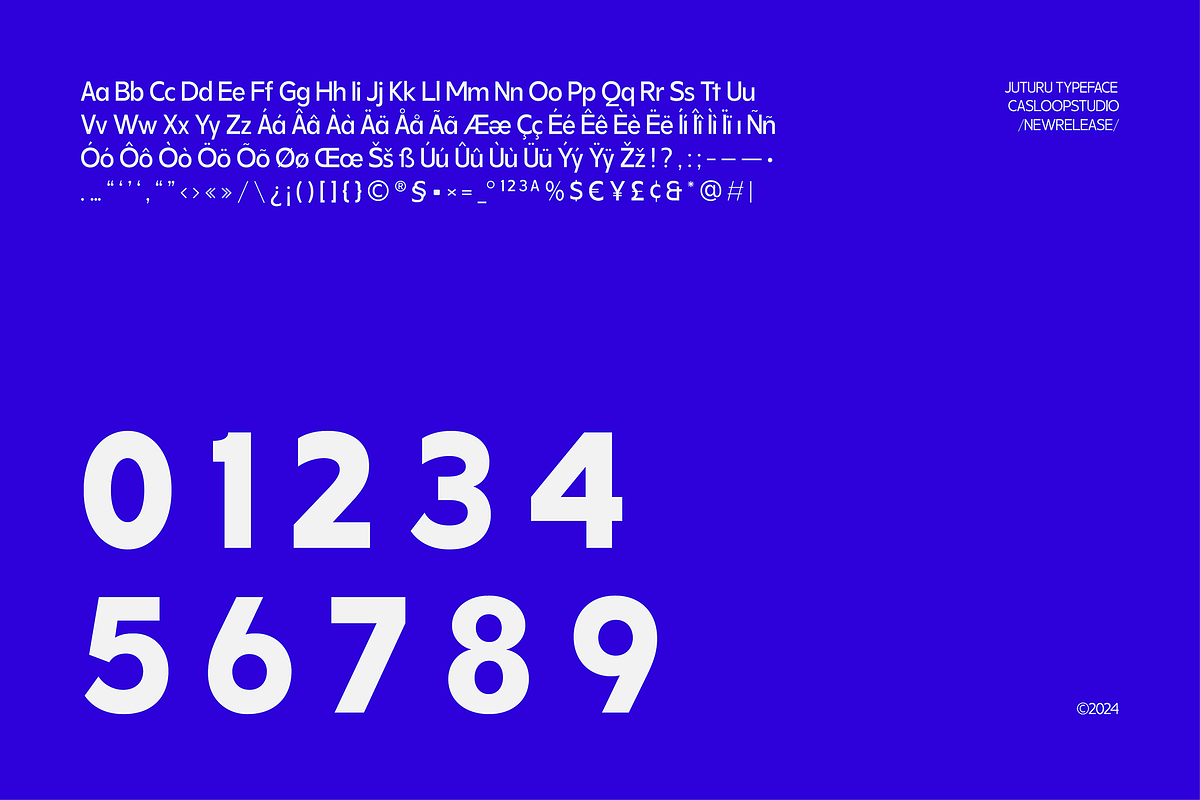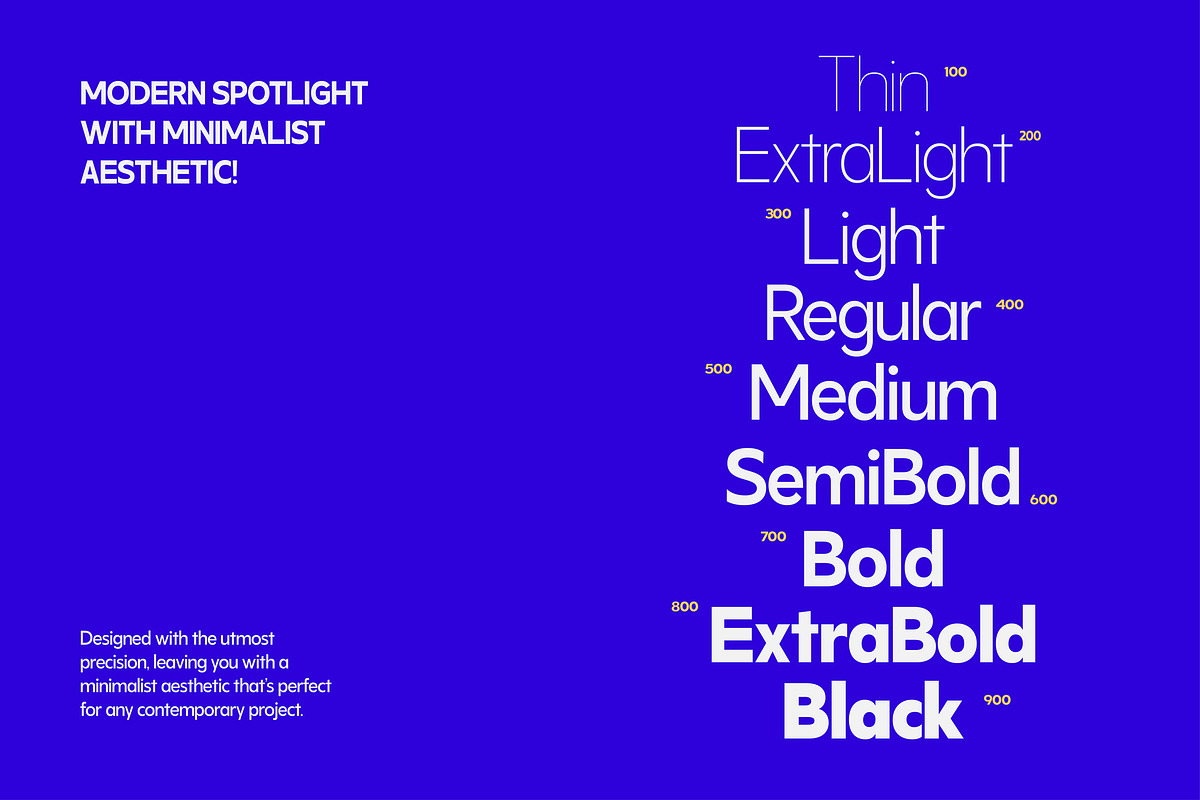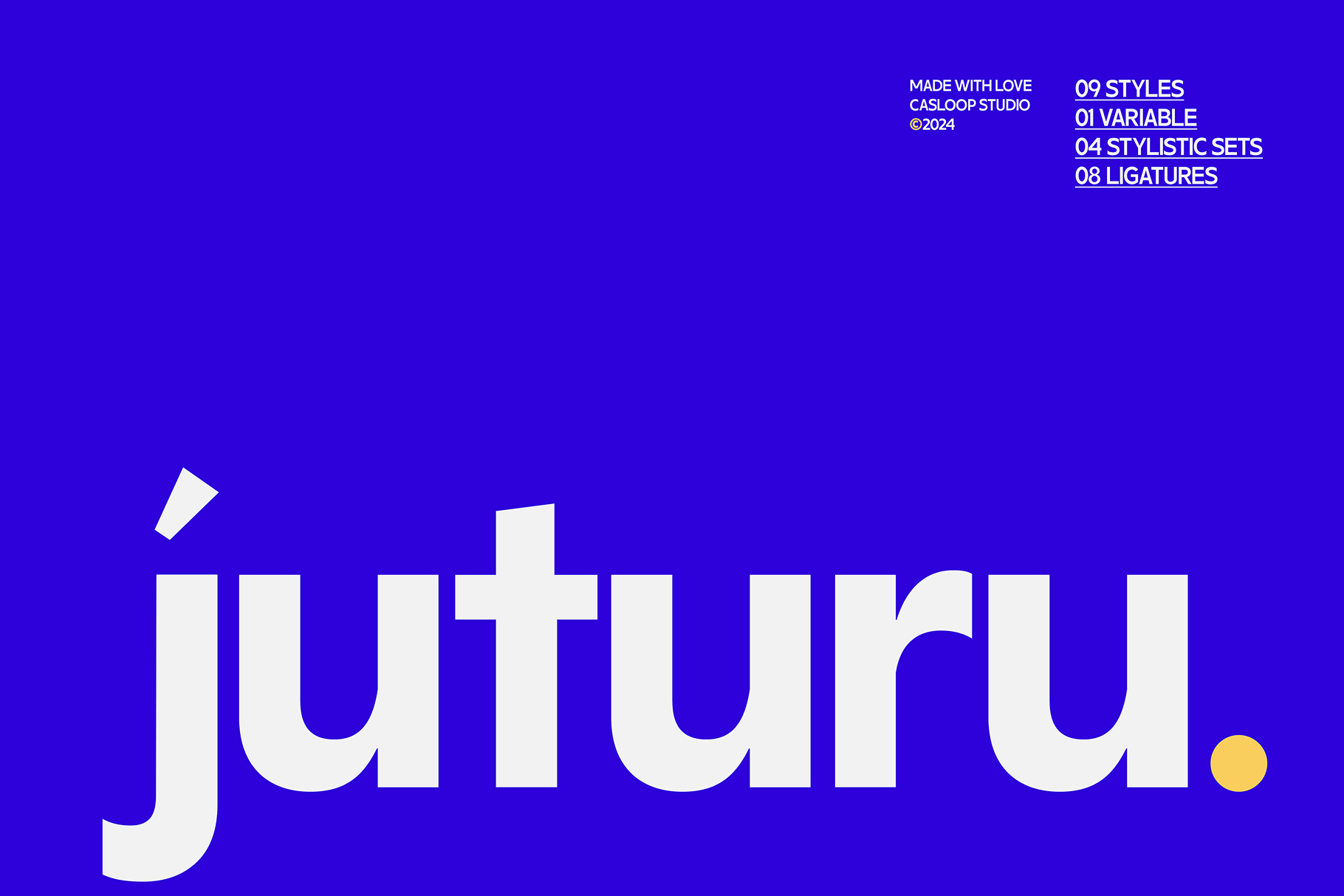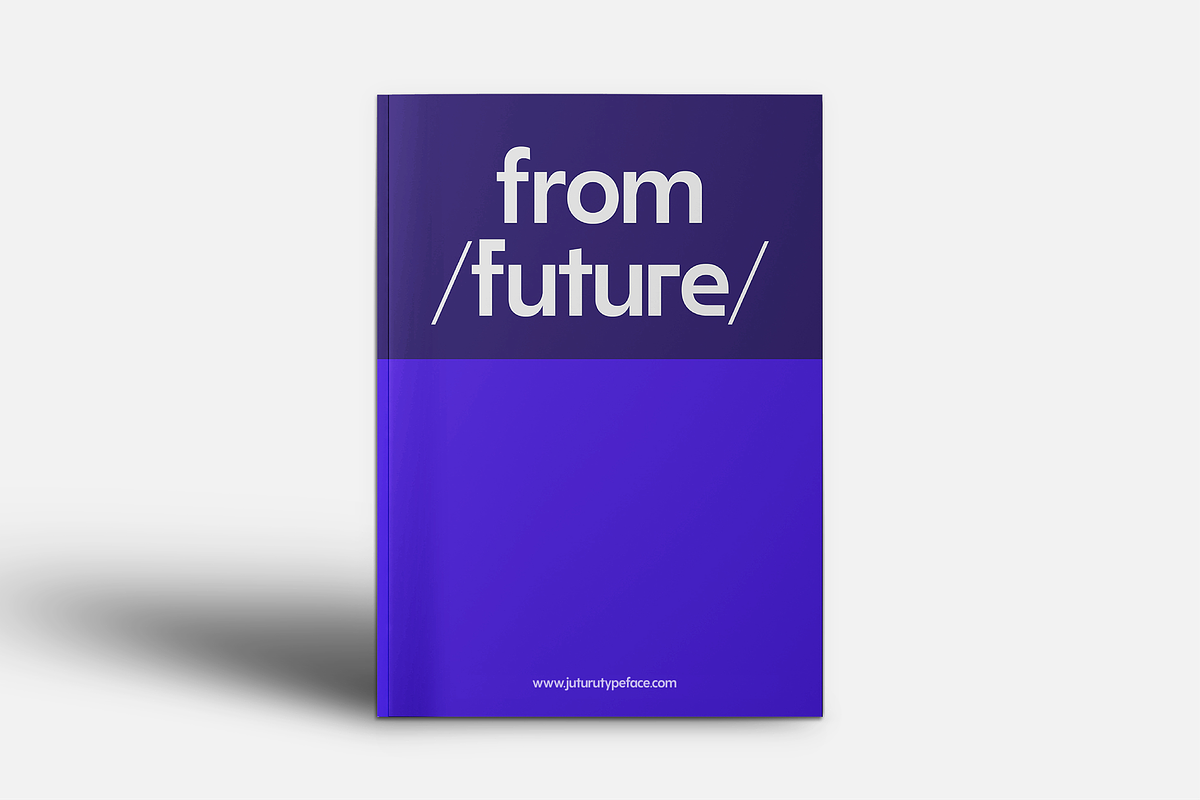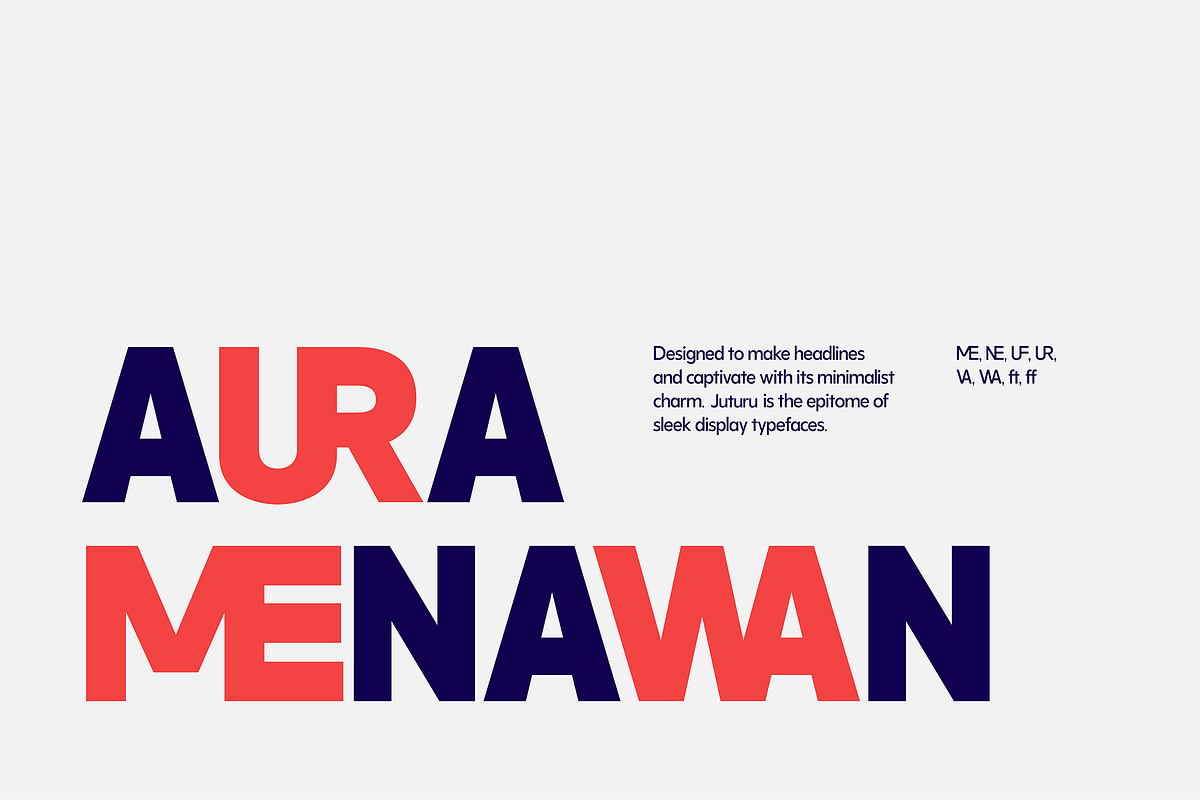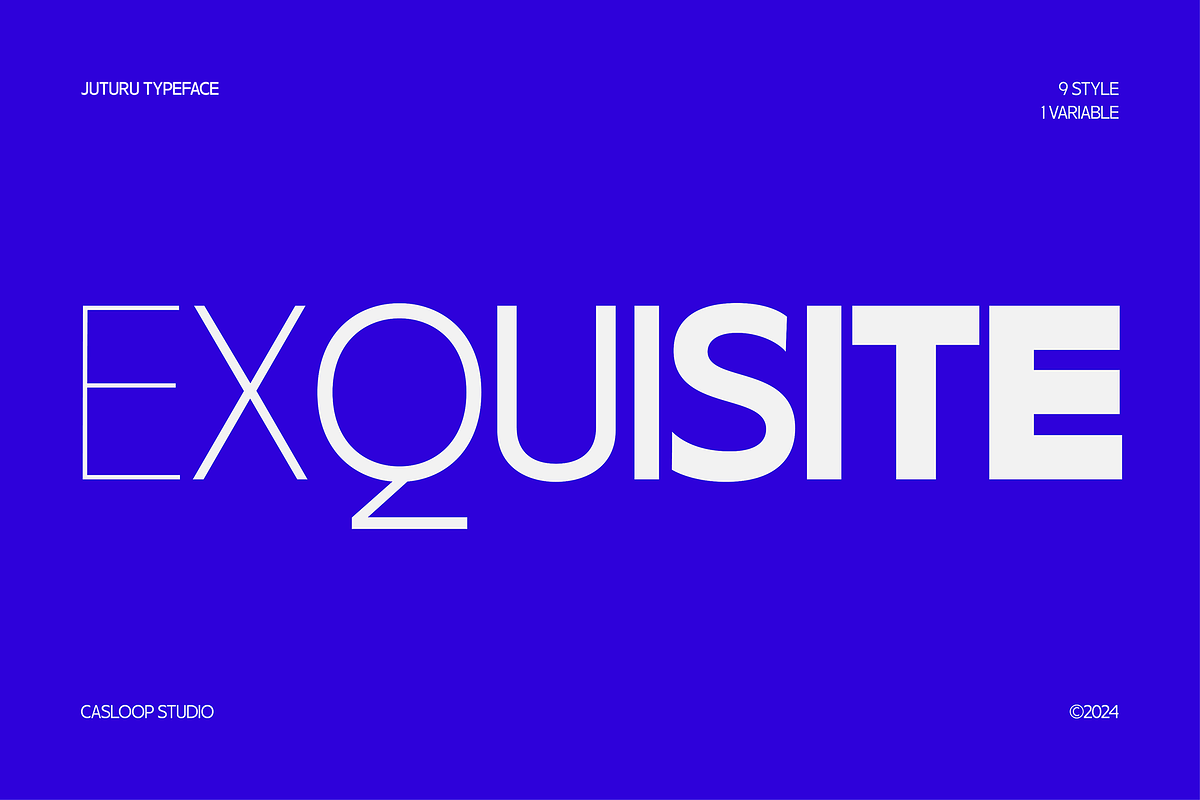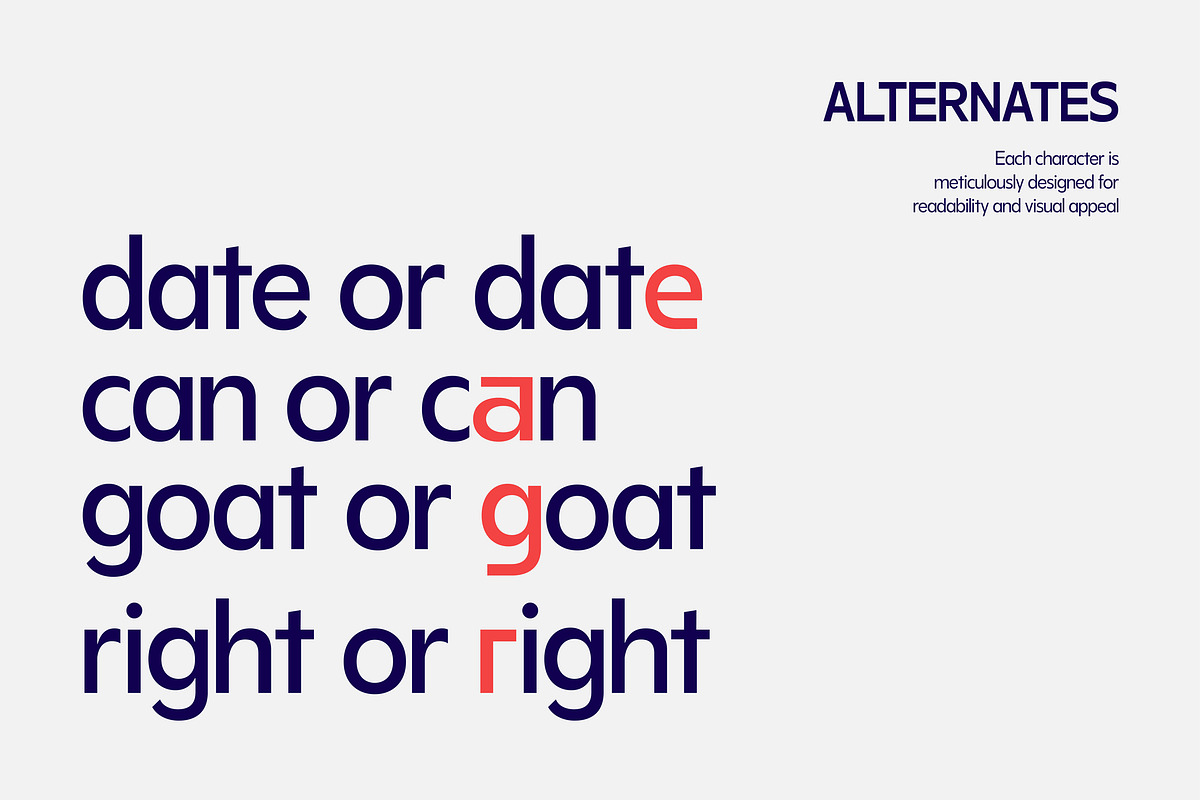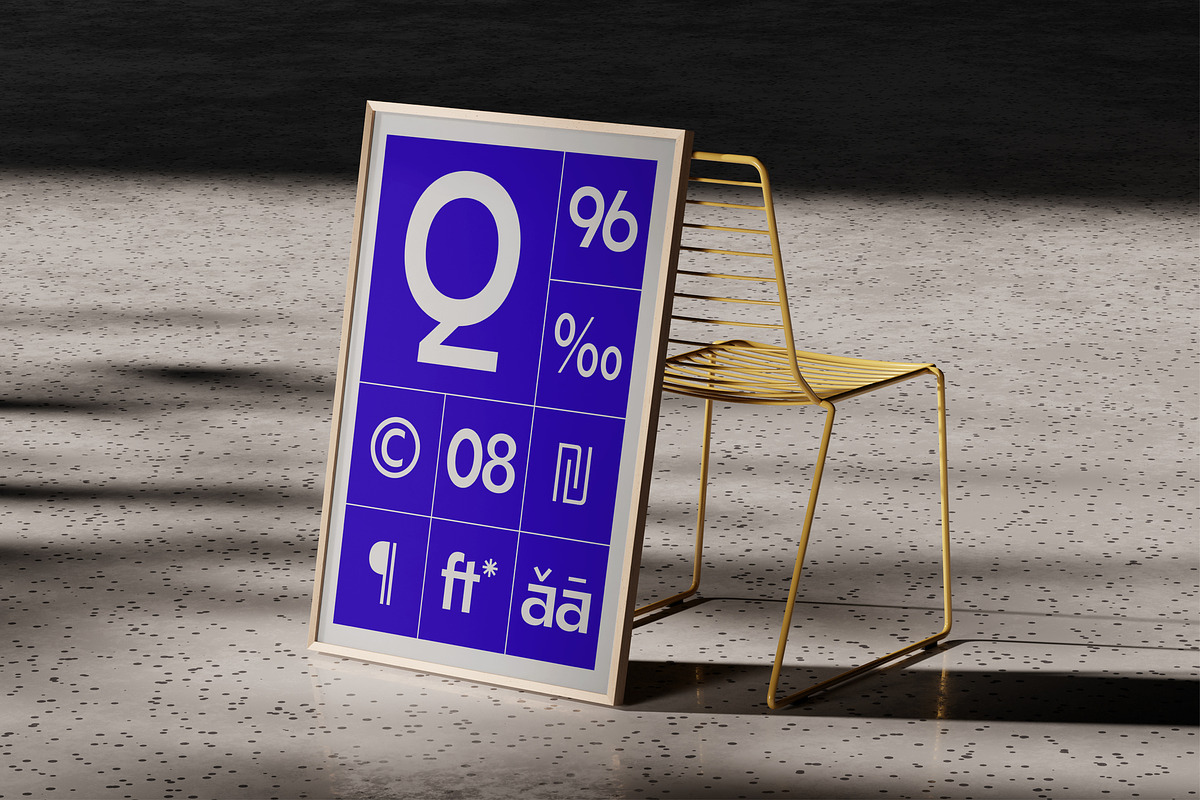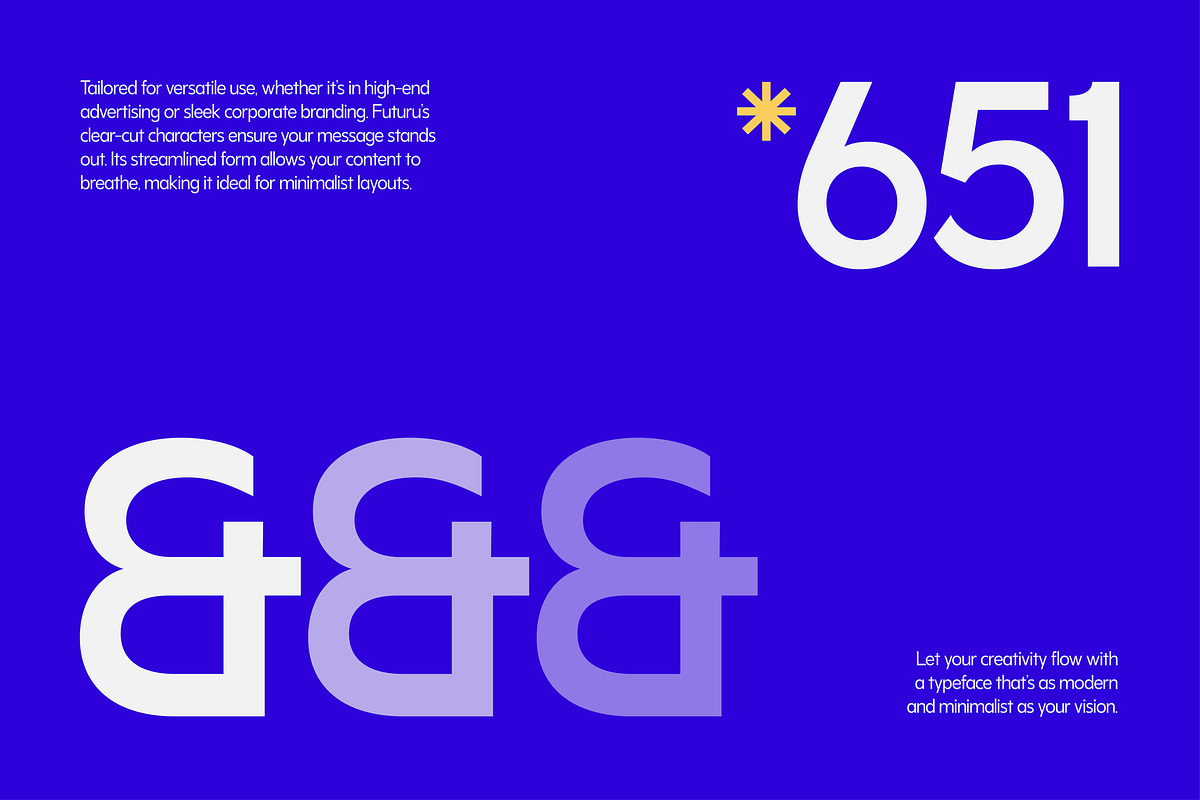
Juturu | Geometric Variable 9 Fonts
Discover Juturu, the modern geometric sans-serif typeface that bridges the gap between timeless elegance and contemporary design. With its distinctive uppercase characters and historical neo-grotesque inspiration, Juturu is a versatile solution for all your branding and digital media needs. What sets Juturu apart is its unique blend of professional and minimalistic design. Its sleek, impactful forms are perfect for a wide range of applications, from website logos and packaging to dynamic text animations and motion graphics. The font’s large x-height and short descenders ensure exceptional legibility, while its modern, quirky elements add a touch of originality and flair.
Supported Languages: Bosnian, Catalan, Czech, Danish, German, English, Spanish, Estonian, Finnish, French, Bergen, Wild, Irish, Mango, Croatian, Hungarian, Icelandic, Italian, Lithuanian, Tan, Latvian, Maltese, Dutch, Norwegian, Polish, Haas, Portuguese, Romanian, Slovak, Slovenian, Albanian, Swedish, Turkish. Ideal for corporate branding and school projects alike, Juturu stands out with its premium quality and dynamic versatility. Whether you’re crafting a digital media visual or creating a minimalist logo, this font promises to deliver a stylish, professional touch.
Features: Uppercase & lowercase, Numbers and punctuation, Ligatures & Alternates, Multilingual. Elevate your design with Juturu, where modern technology meets timeless sophistication. This font seamlessly integrates with design applications like Adobe Illustrator, Adobe Photoshop, Corel Draw, and Affinity Designer. However, it's worth noting that its accessibility extends beyond traditional platforms; it can also be utilized on web-based applications such as Kittl, Canva, Artboard Studio, and more. Cheer from Casloop Bali! May this font bring vibrancy to your designs!